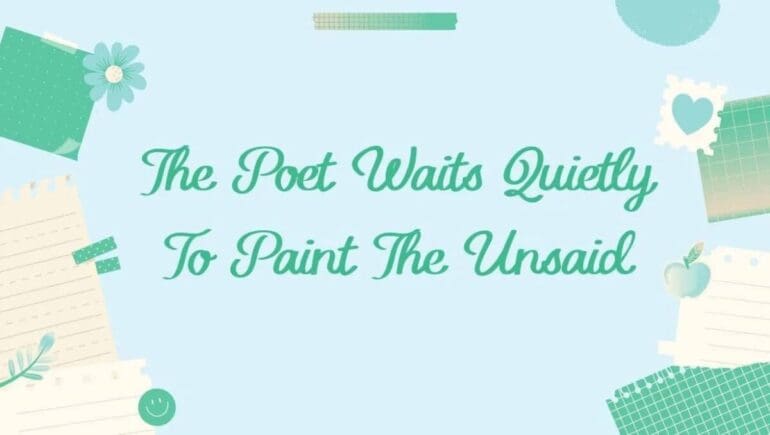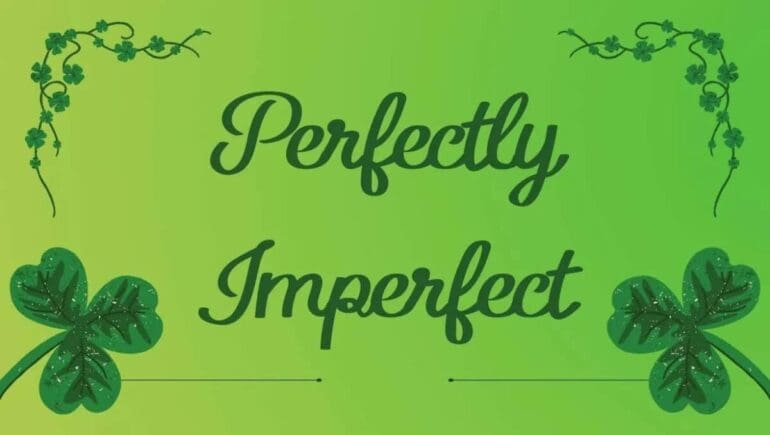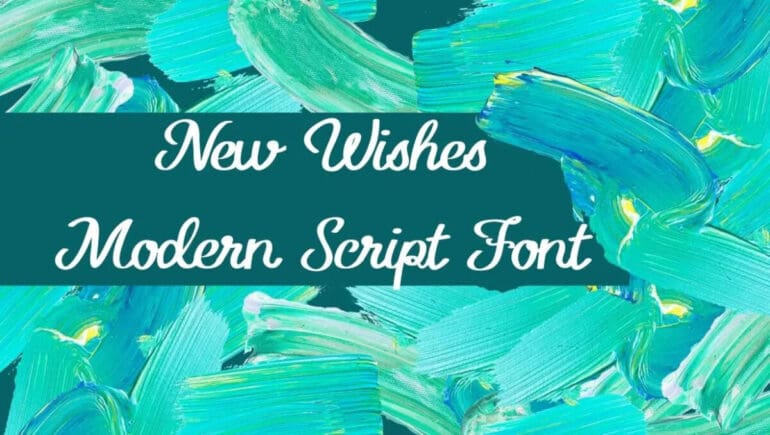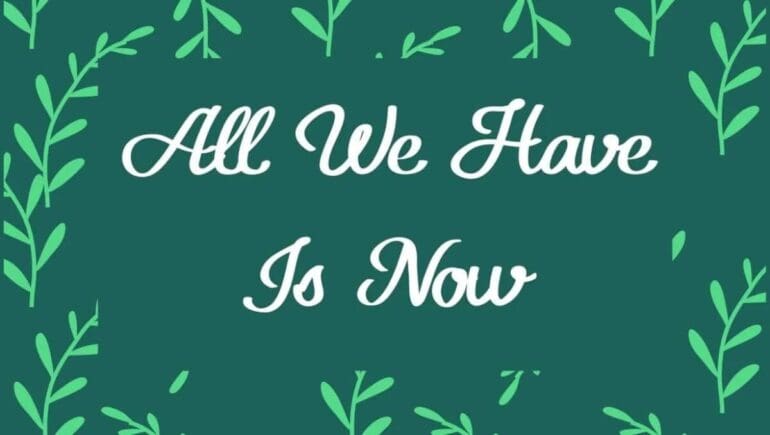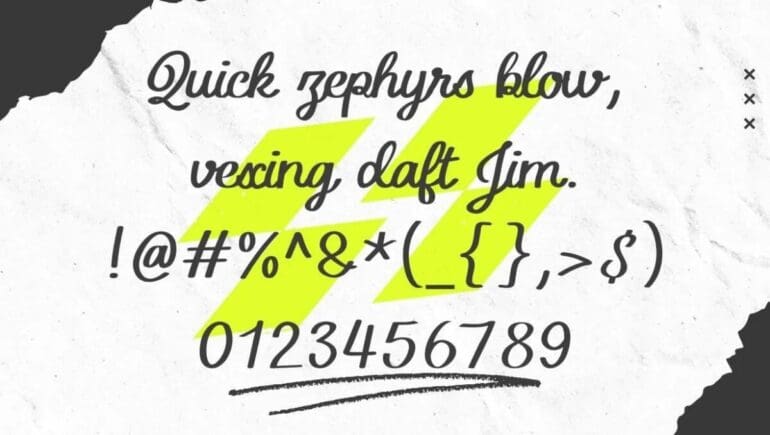
New Wishes Modern Script Font
Introducing New Wishes Modern Script Font:
Introducing a gorgeous and outstanding typeface that is New Wishes Modern Script Font. The typeface falls in the category of Script Font family and is the best creation of Fontles. It is a best Typeface website where you can get plenty of amazing font styles. While the typeface is available in OpenType and TrueType features and we provided the font style as demo version that can be utilized in your in house and personal works.